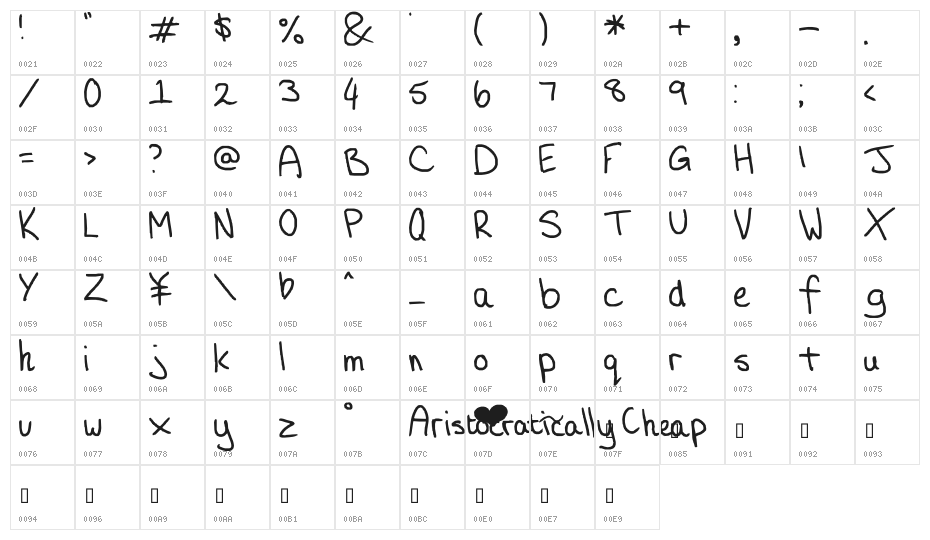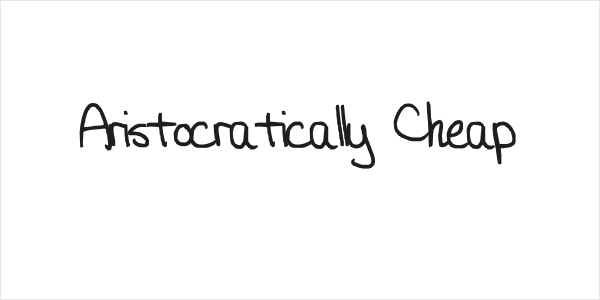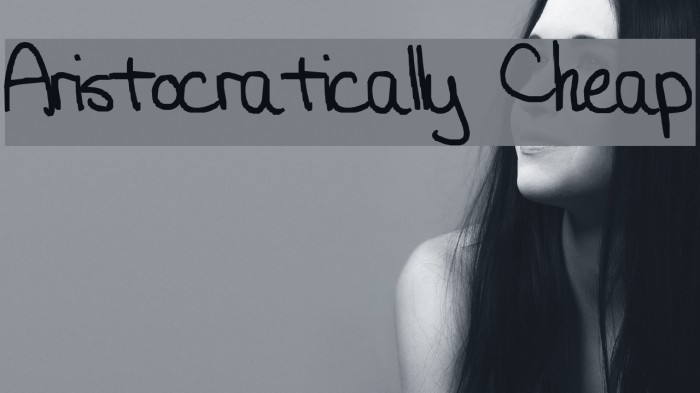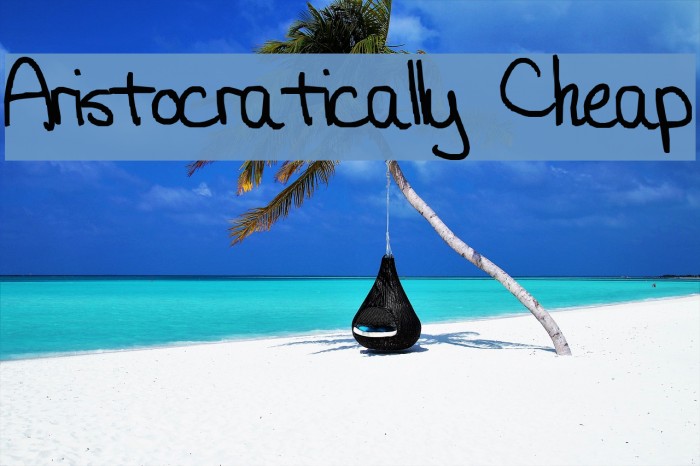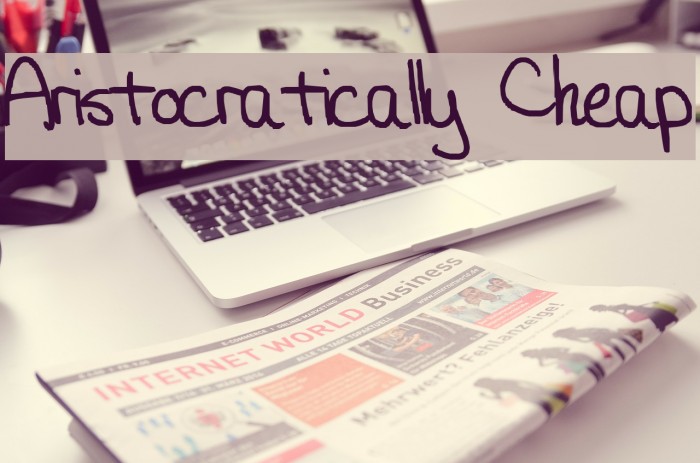
Aristocratically Cheap Font
Aristocratically Cheap Description
This font exudes a casual, handwritten style with a playful and informal appearance. The letters are unevenly spaced and vary in size, giving it an authentic, hand-drawn look. The strokes are bold and consistent, with a slight slant that adds a dynamic feel. The uppercase and lowercase letters maintain a cohesive style, while the numbers and special characters are crafted with the same whimsical touch. This font is perfect for projects that require a personal, approachable, and creative vibe.
| Overall Style | Casual |
| Use Case | Logos, Headlines, Informal Invitations |
| Proposed Projects | Ideal for greeting cards, personal notes, children's books, and creative posters. |